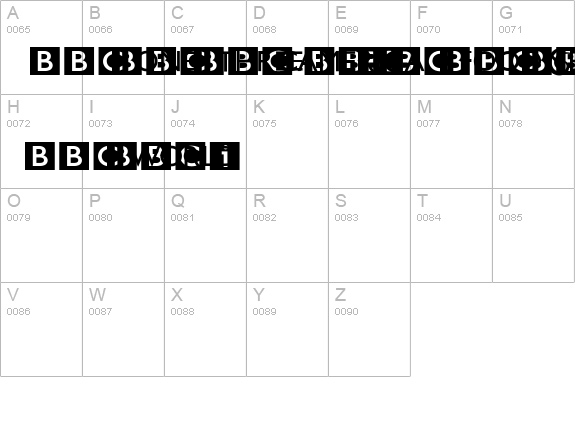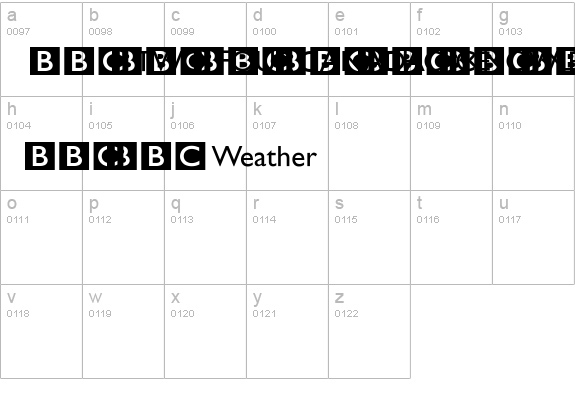
BBC Striped Channel Logos Font Details
The BBC Striped Channel Logos font is a sleek and modern typeface featuring clean lines and a striking striped design. Perfect for adding a touch of sophistication to your graphic design projects, this font is sure to make a bold statement. With its unique aesthetic and eye-catching appeal, the BBC Striped Channel Logos font is versatile and can be used for a wide range of design applications. Best of all, this font is available for free download at FontsMarket.com. Whether you're working on a branding project, creating social media graphics, or designing a website, the BBC Striped Channel Logos font is a fantastic choice to elevate your design work. Download this font today and unleash your creativity with this stylish and contemporary typeface.